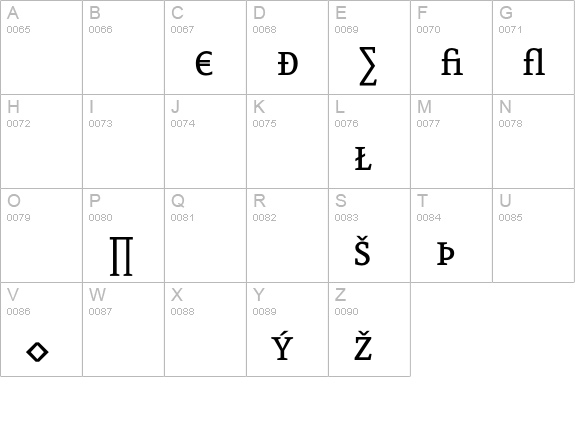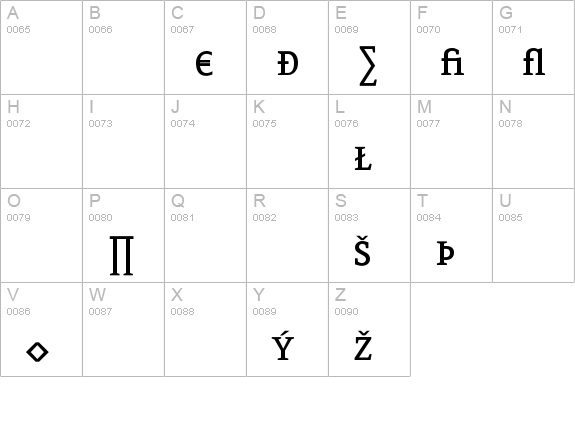
Eureka-MediumExpert Font Details
Eureka-MediumExpert is a versatile and elegant font that exudes a sense of professionalism and sophistication. Its medium weight strikes the perfect balance between readability and visual impact, making it ideal for a wide range of design projects. This font features clean lines and a modern aesthetic, making it suitable for both print and digital applications. Its expertly crafted design ensures that text appears crisp and clear, enhancing the overall visual appeal of any project. Best of all, Eureka-MediumExpert is available for free download at FontsMarket.com. This means that you can incorporate this stunning font into your designs without incurring any additional costs. Whether you're working on a website, poster, or branding materials, Eureka-MediumExpert is sure to elevate your design and leave a lasting impression on your audience.